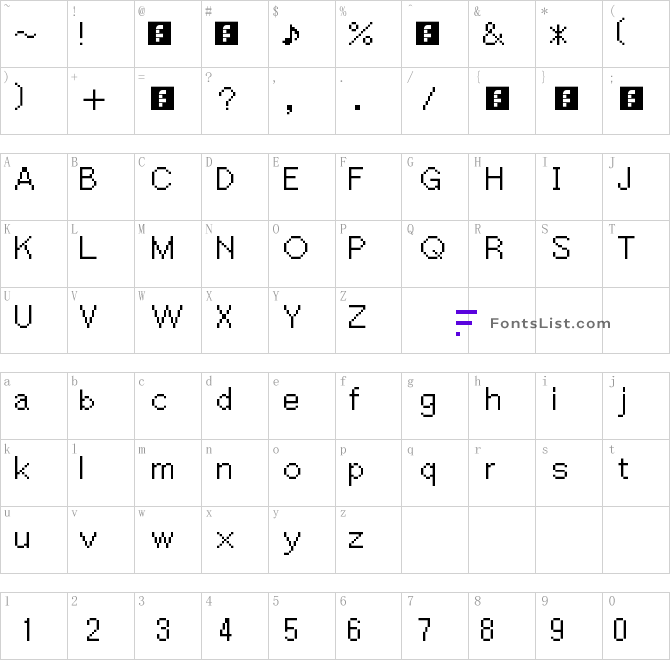
- Font Name:Ace Attorney
Ace-Attorney-Regular.ttf is a very beautiful artistic font, Ace-Attorney-Regular.ttf is widely used in the design and printing of various books and pictures,Ace-Attorney-Regular.ttf has a strong visual impact,Ace-Attorney-Regular.ttf is a commonly used font in newspapers, magazines and books, and is used in posters, e-commerce Poster design, store design, logo design, font design and other fields.Ace-Attorney-Regular.